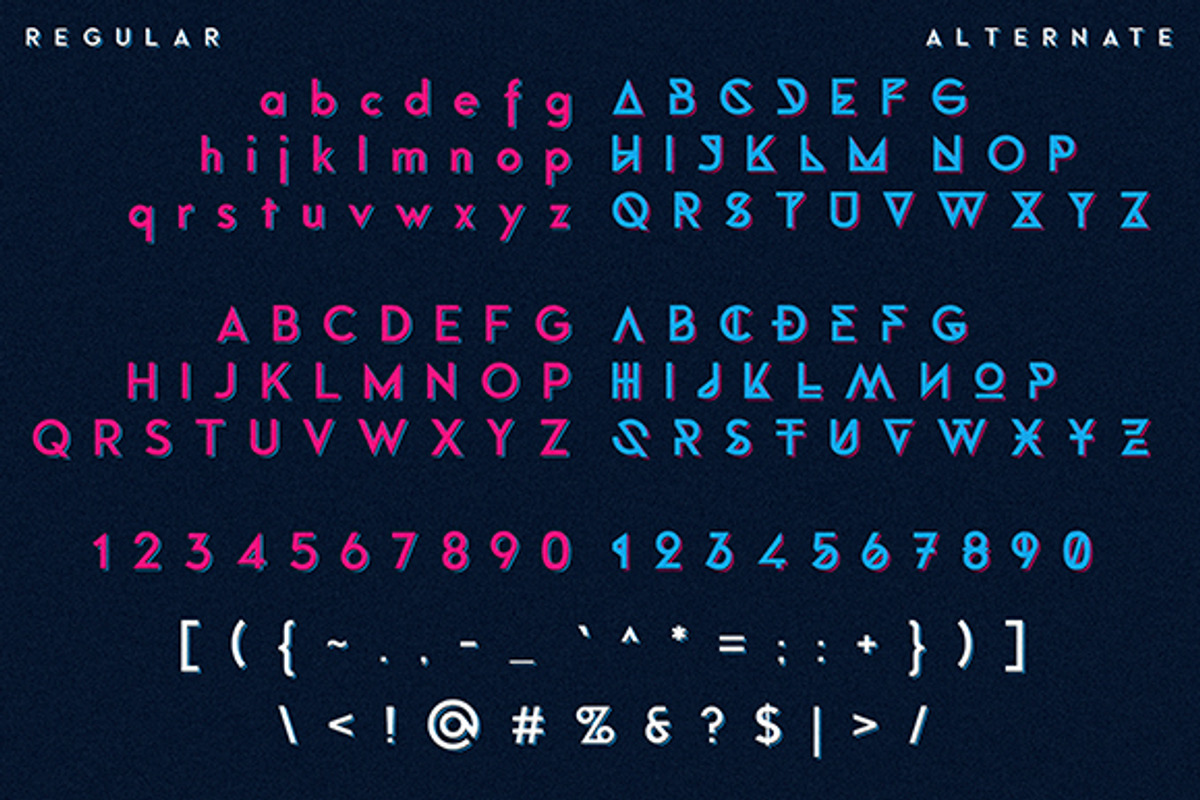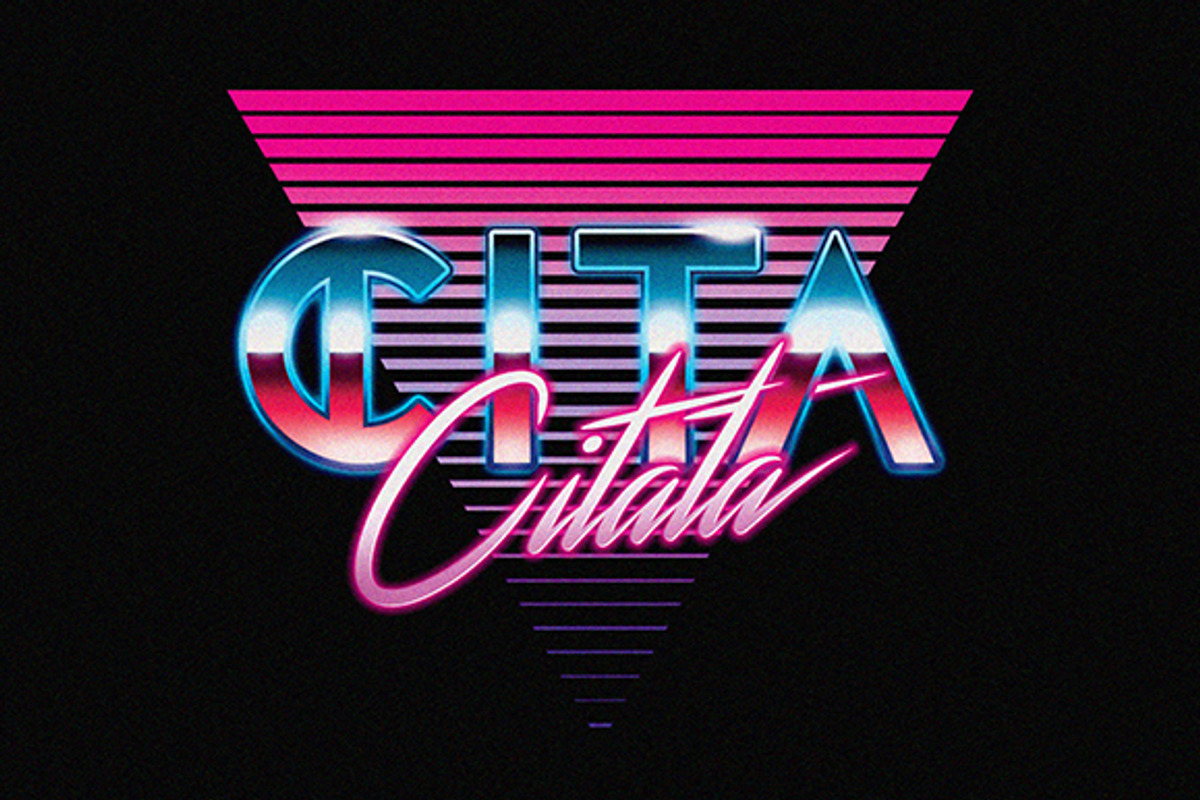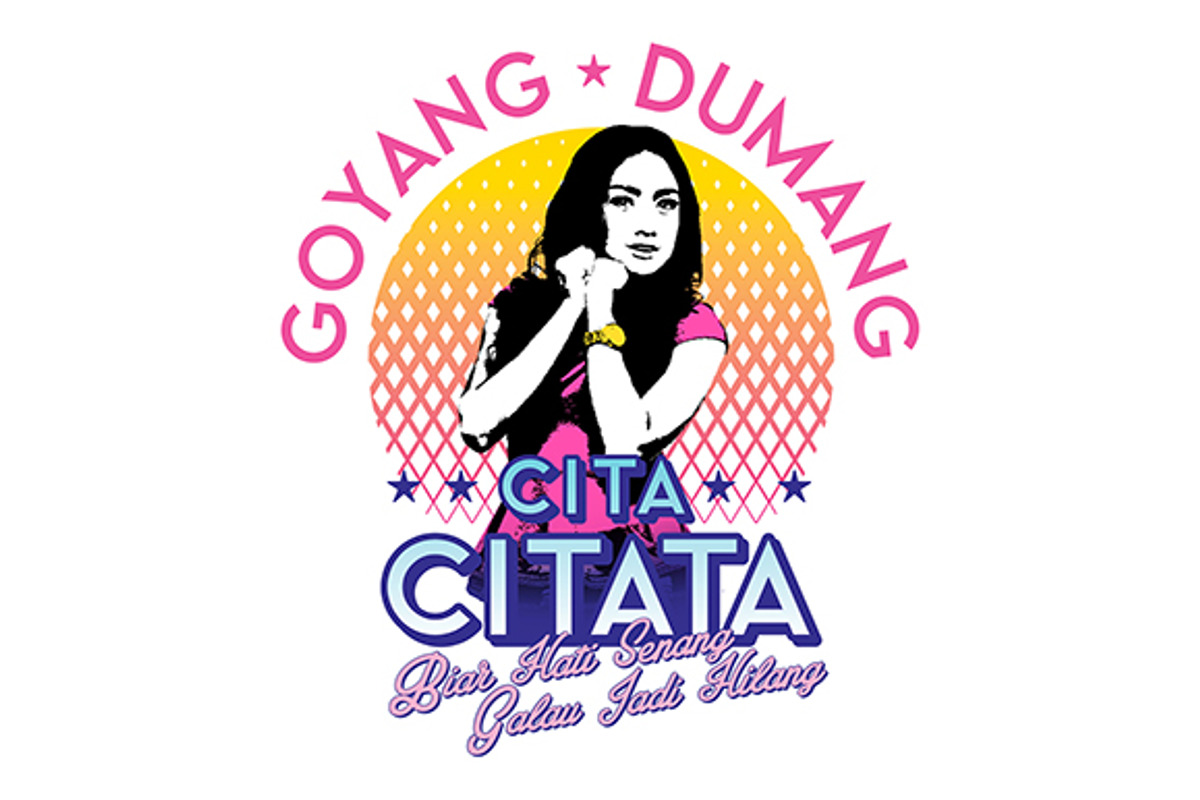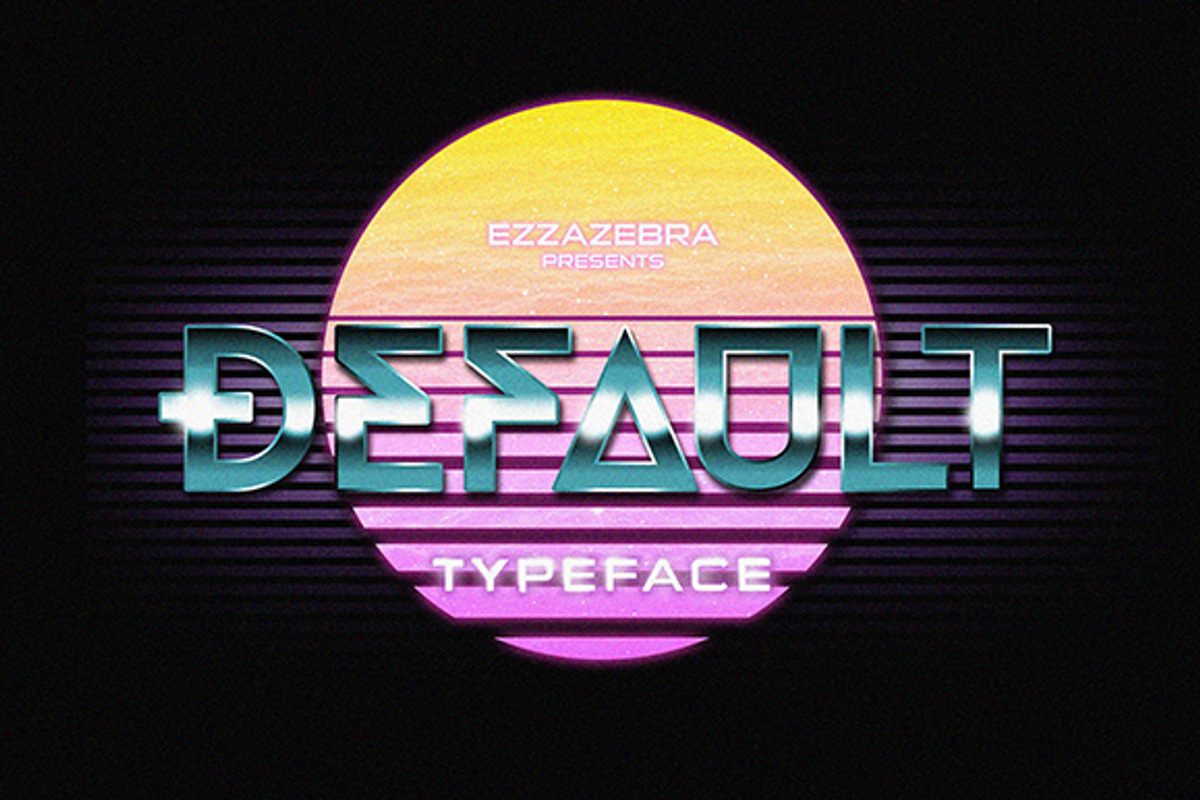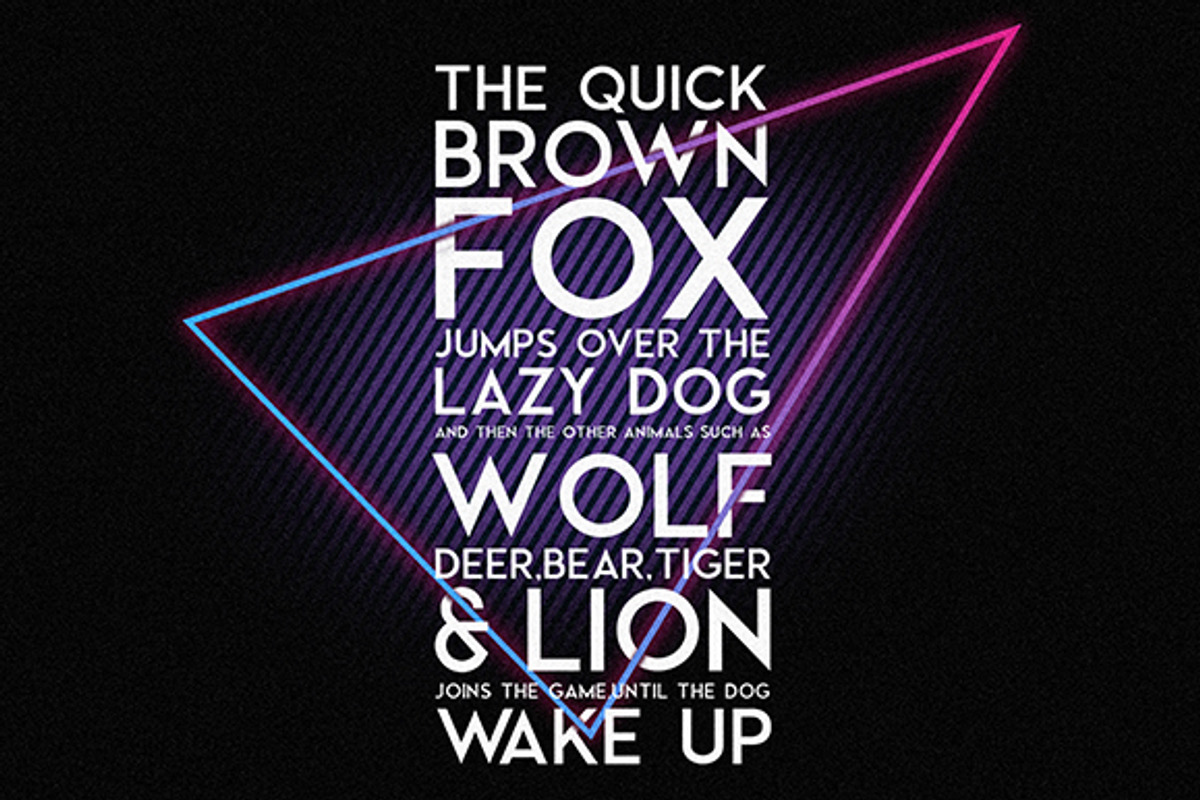
Default Typeface + 80s Style
Default Typeface + 80s Style by Adhreza is a font selected for branding, posters, packaging, typography.
- It can be more maximal with the effect that I include in the package.
- So functionally, the font can use for body text and display either with Regular or Alternates to make an unique title.
Why Default Typeface + 80s Style is worth a look
Default Typeface + 80s Style by Adhreza fits naturally into Branding, posters, packaging, typography.